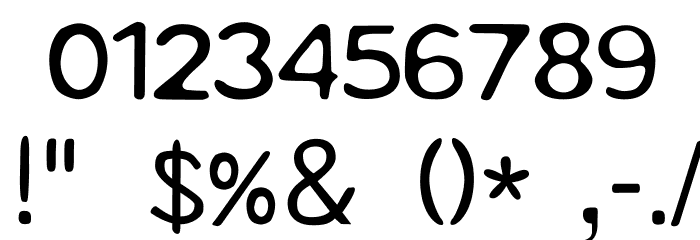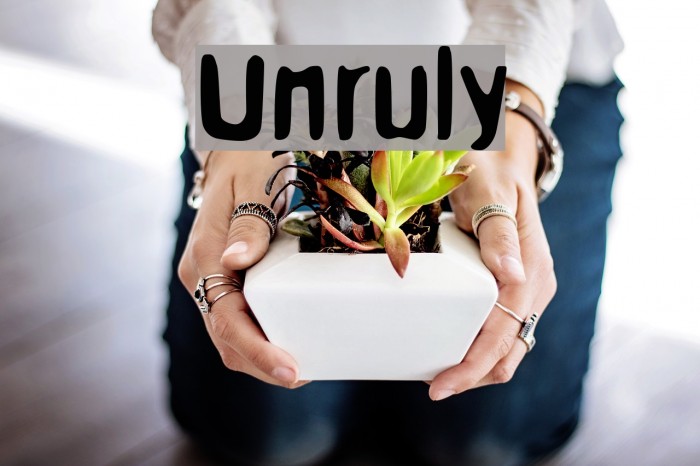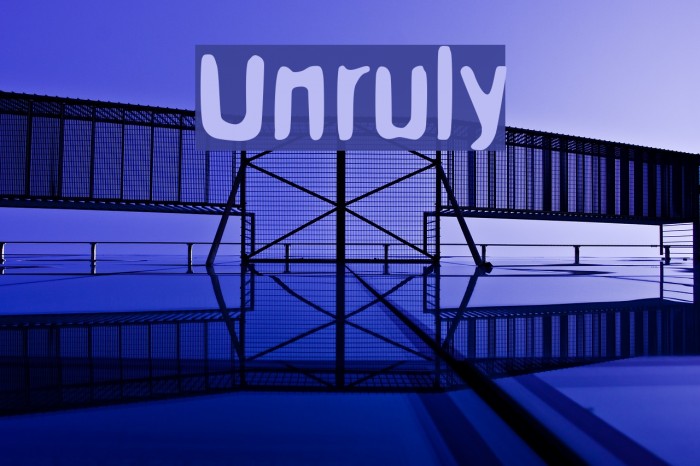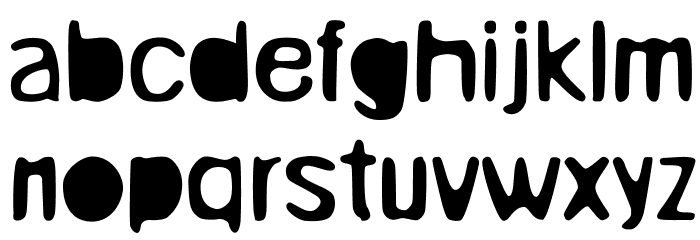
Unruly Font
Unruly Description
This font features a playful and bold style with irregular, wavy edges that give it a hand-drawn appearance. The characters are thick and rounded, creating a sense of fun and spontaneity. The uppercase and lowercase letters maintain a consistent weight, while the numbers and special characters follow the same whimsical design. The overall look is informal and lively, making it suitable for creative and casual projects. Its unique style stands out, making it ideal for attention-grabbing headlines or artistic designs.
| Overall Style | Playful, Artistic |
| Proposed Projects | Ideal for children's books, playful branding, party invitations, and creative posters. |